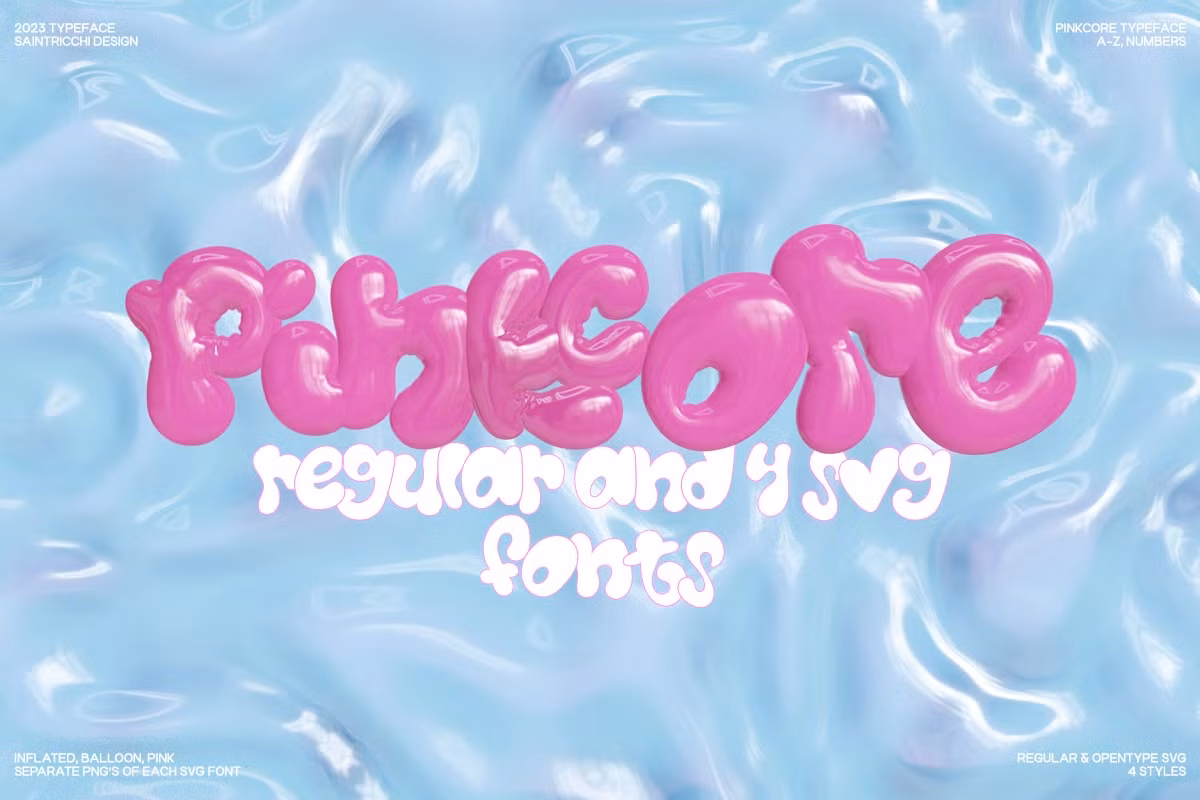
PINKCORE – Font & SVG Fonts & PNG Free Download is a bold, expressive typeface pack that includes standard fonts, high-resolution SVG versions, and bonus PNG graphics. Perfect for pop-culture designs, fashion branding, album covers, and eye-catching social media content, PINKCORE delivers vibrant style with attitude. Please note that you must purchase this font for commercial use, but it is available as a free download for testing purposes. Add fierce personality and standout visuals to your work with PINKCORE – Font & SVG Fonts & PNG Free Download, and make your designs impossible to ignore.